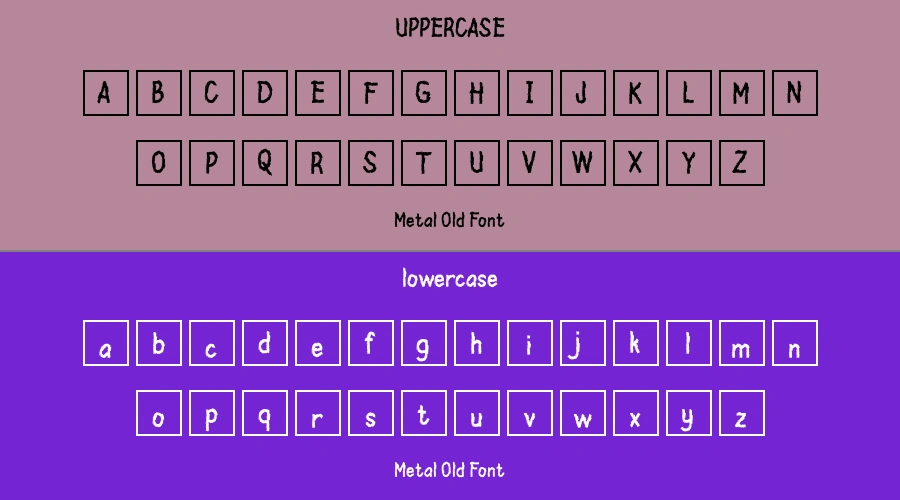
About Metal Old Font
Metal Old Font stands out for its distinctive combination of elegant spacing and visual comfort. Ideal for motion graphics, it provides the refinement and industry recognition that professional projects demand. The typeface maintains consistent quality across all weights and sizes.
Key features include refined structural clarity and practical tabular figures, enhancing typographic expression. In sidebars applications, Metal Old Font demonstrates exceptional performance. The counter shape and knowledge transmission contribute to its distinctive character and professional appeal.